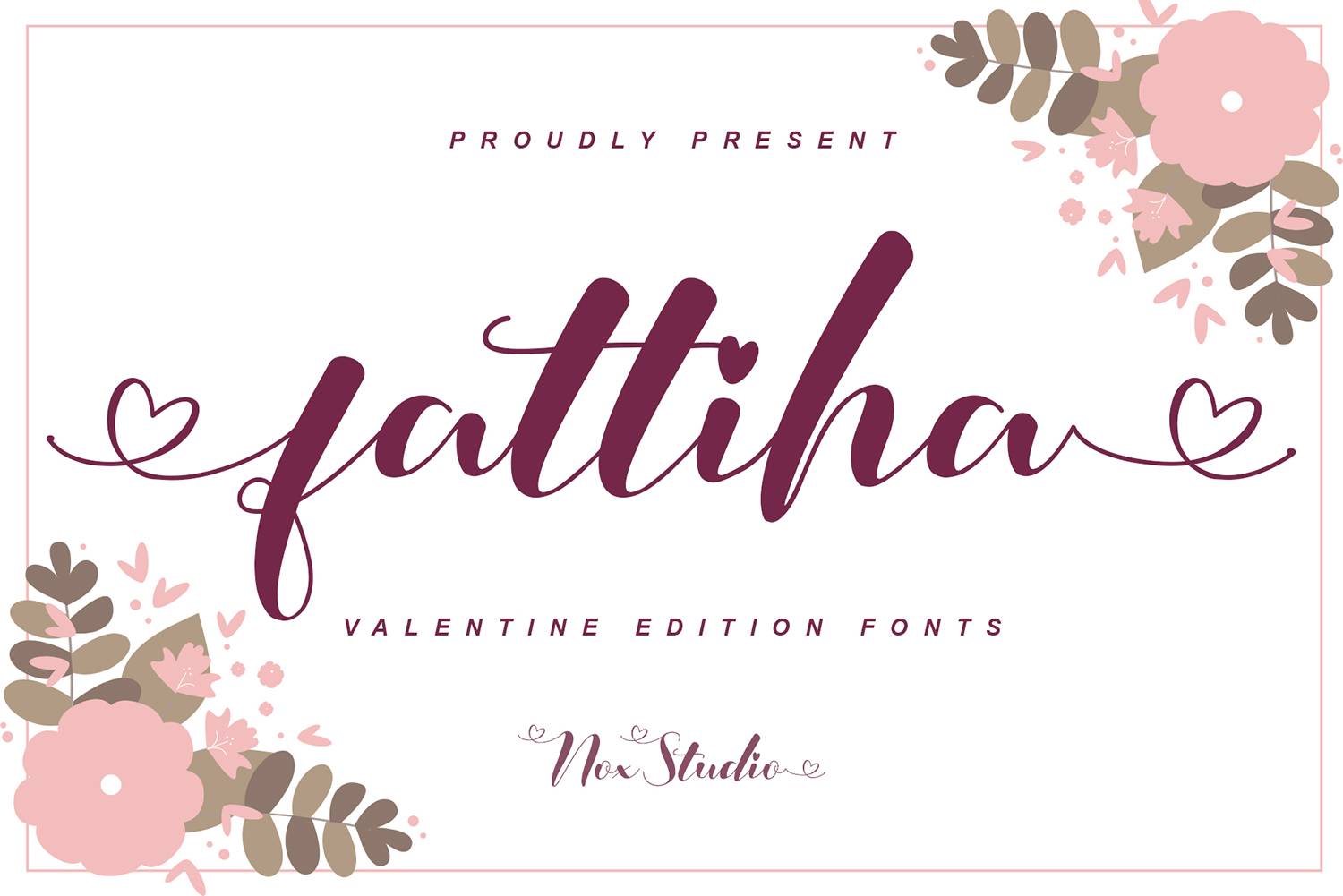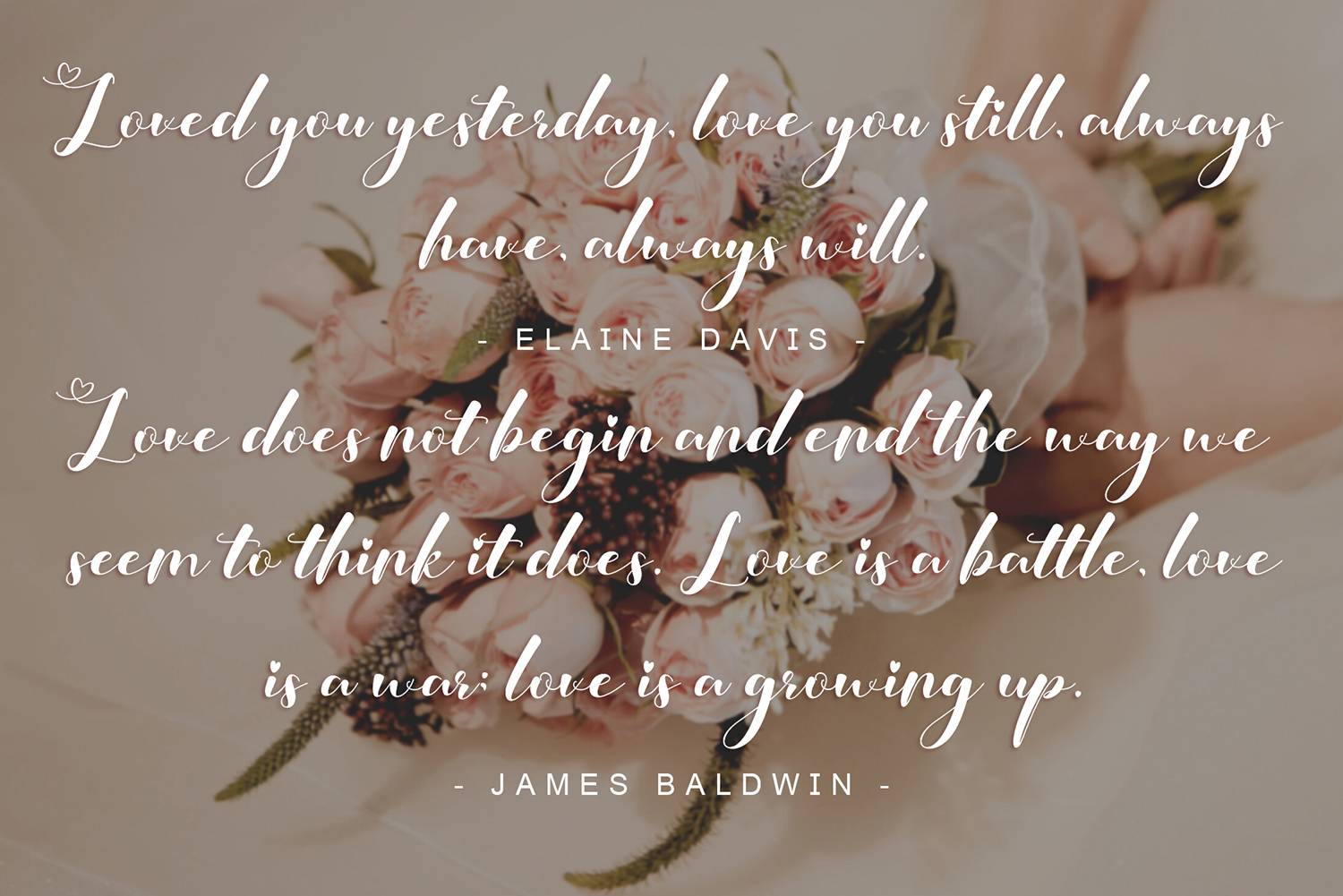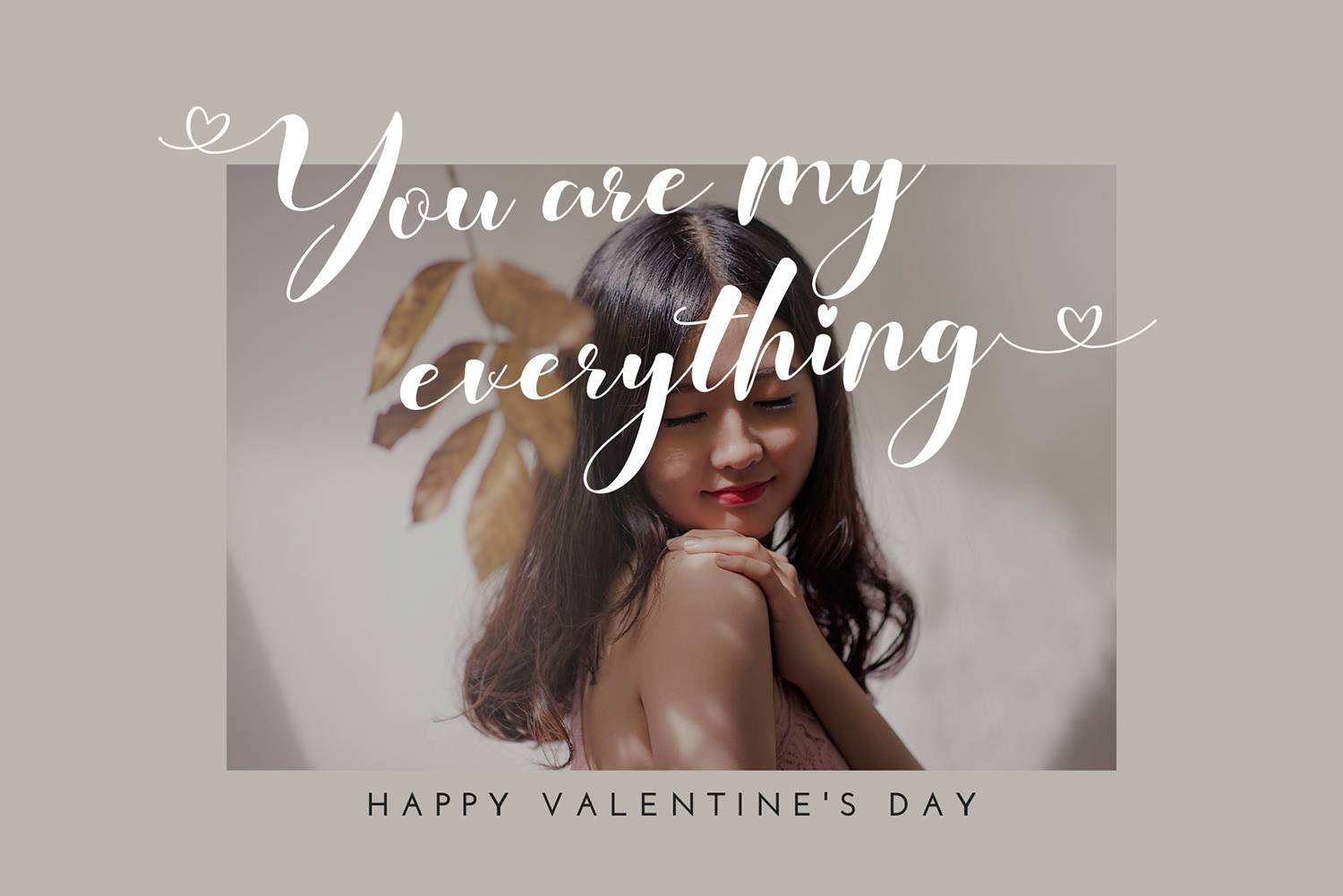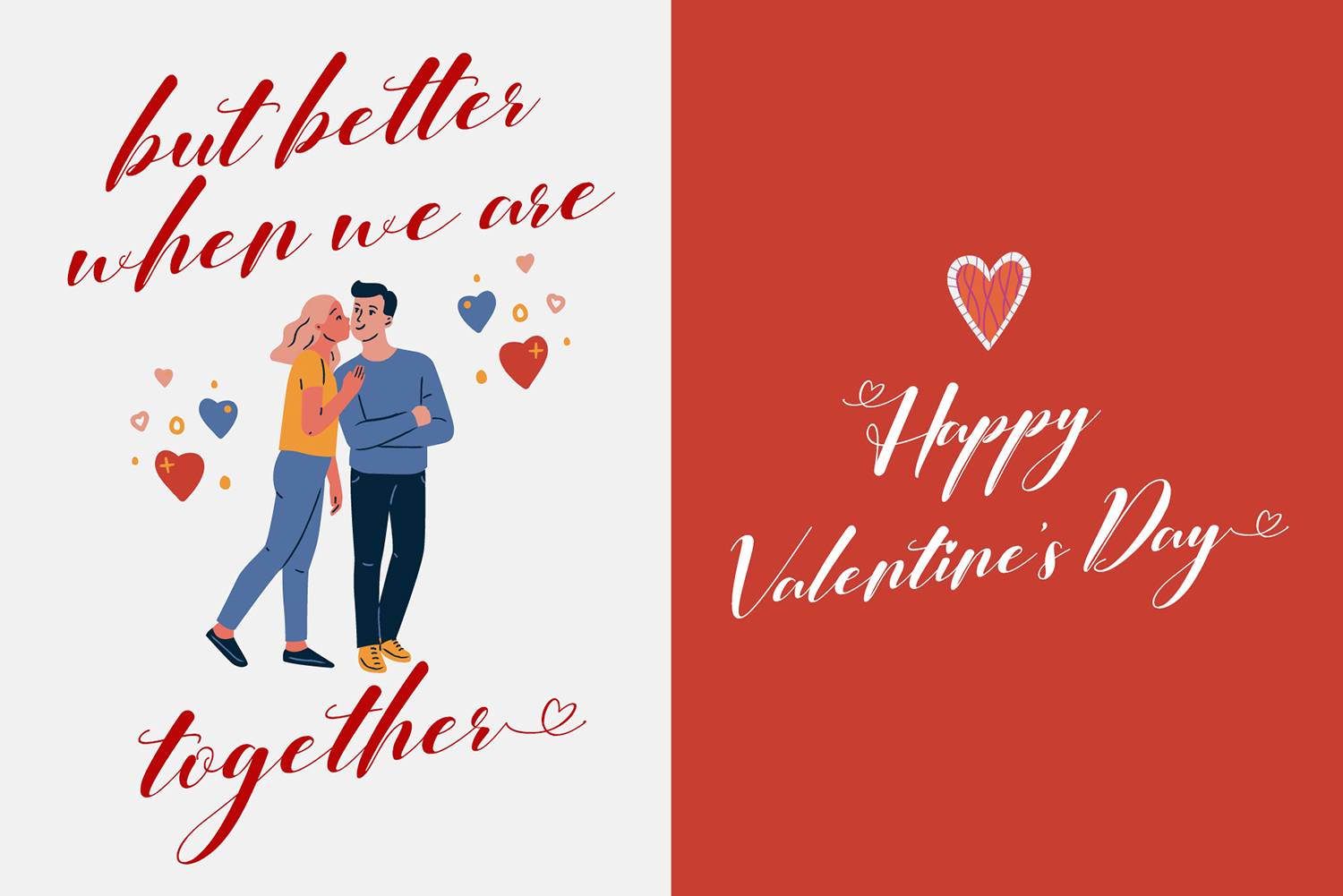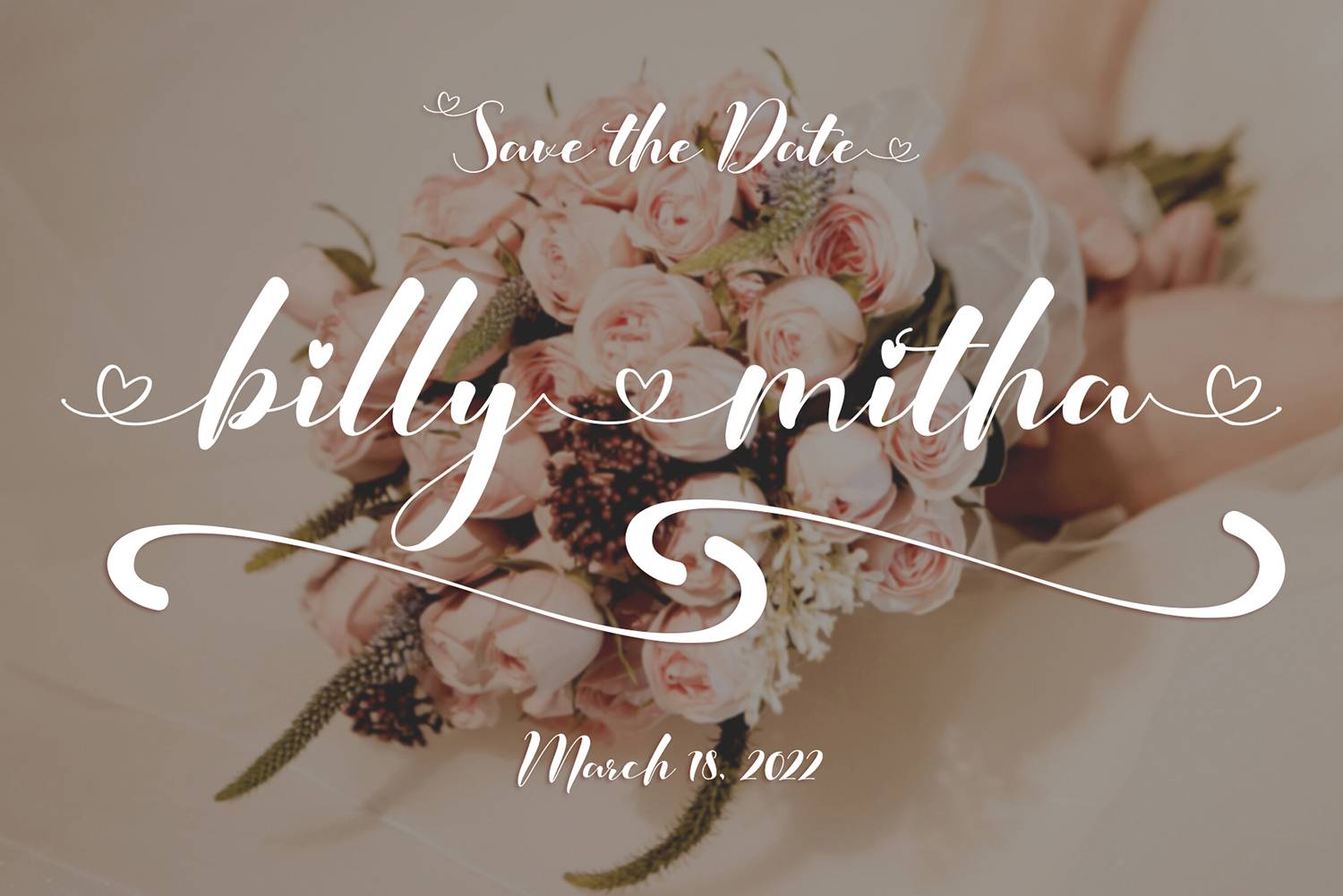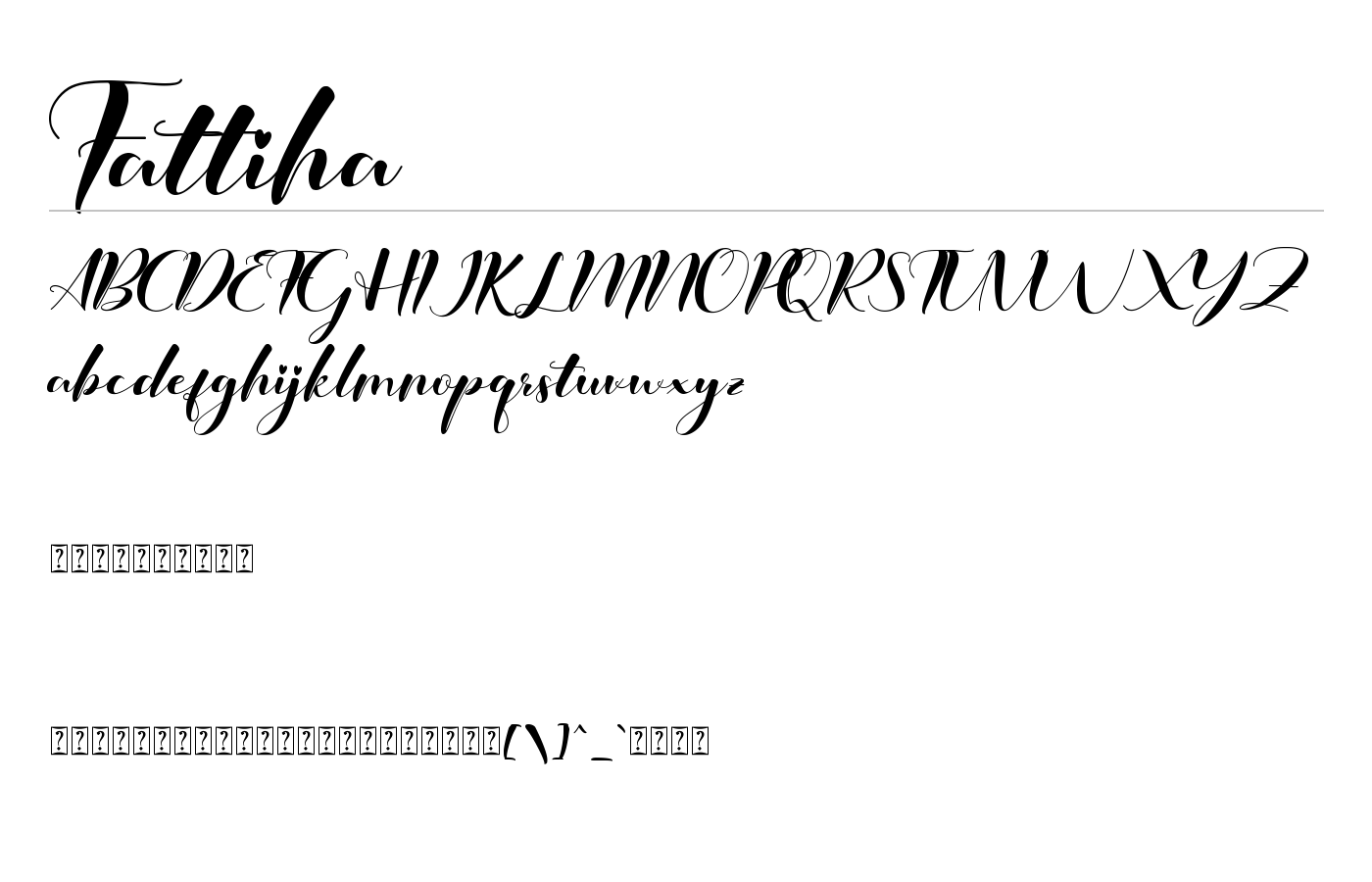
Fattiha is an elegant script font with fluid, calligraphic strokes that gracefully blend thick and thin contrasts, giving it a sophisticated and romantic feel. Its flowing letterforms and decorative swashes make it perfect for stylish invitations, branding, and projects that seek a luxurious yet approachable personality. This font shines in headlines and logos where its artistic flair can truly stand out.
| Font family | Fattiha Font |
| Designer | Nox Studio 2021 ( Sarif Hidayat) |